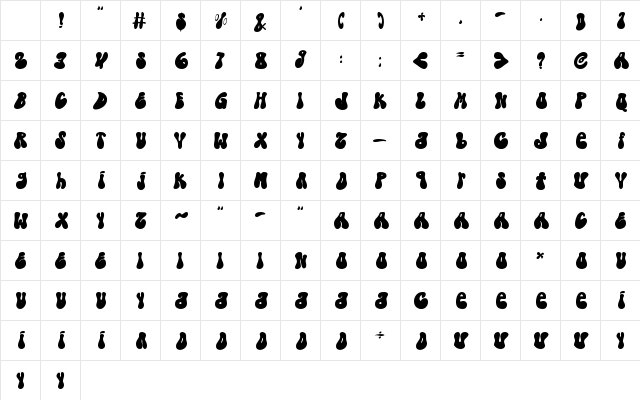
Complete Christmas Groovy - Personal Use Regular glyph index. Displaying only characters natively supported by Christmas Groovy - Personal Use Regular font.
Christmas Groovy - Personal Use is a composed and adaptable typeface that performs quietly and consistently across a wide range of design contexts.